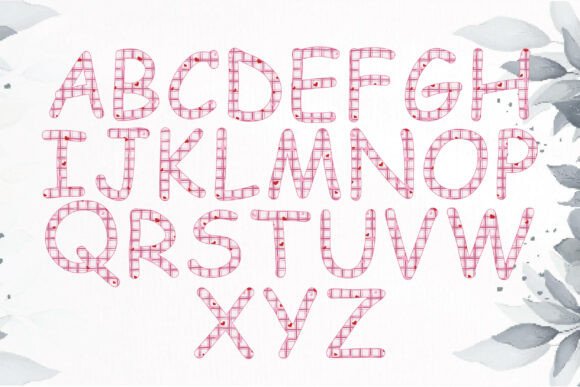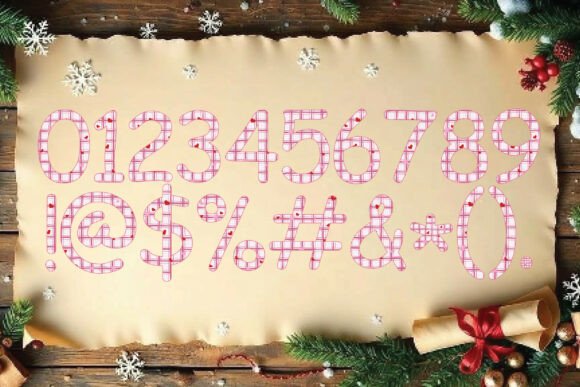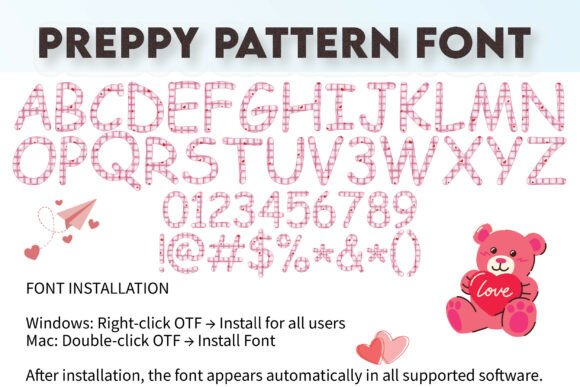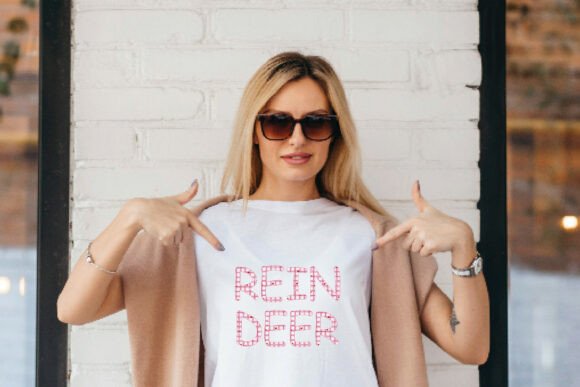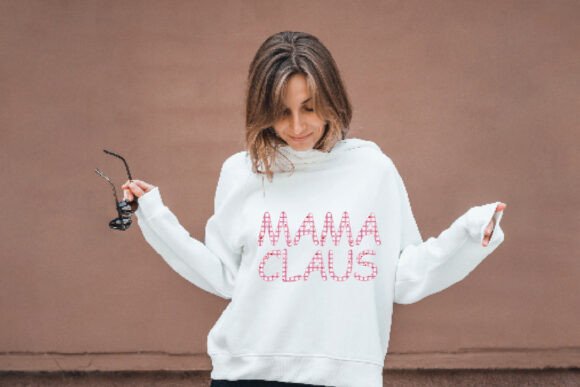
Introduction to Preppy Pattern Font
๐ Preppy Pattern Font โ Cute & Trendy Decorative Alphabet Add a fun and stylish touch to your designs with this Preppy Pattern Font.
Featuring playful patterns inside each letter, this font brings a trendy, aesthetic, and eye-catching look to all your creative projects The Preppy Pattern font is a crafterโs dream, optimized for digital cutting machines and high-quality sublimation prints.
Key Features of Preppy Pattern Font
Why Choose Preppy Pattern Font?
Preppy Pattern Font offers exceptional quality and versatility, making it a valuable addition to your design toolkit. Whether you’re creating for personal projects or commercial use, Preppy Pattern Font delivers professional results.